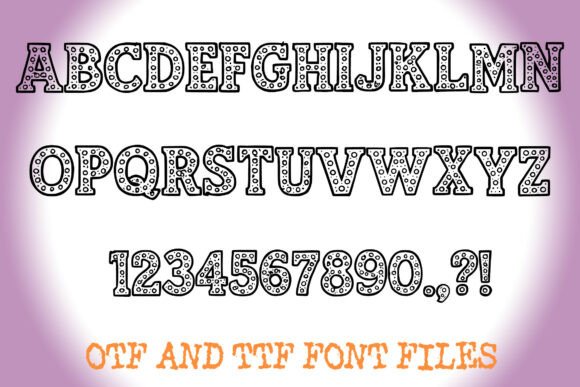
Circus Lights Font: A Bold and Whimsical Typeface for Your Designs
Are you looking for a font that can add a touch of nostalgia and festivity to your designs? Look no further than Circus Lights, a bold decorative display font inspired by vintage marquee signs and carnival aesthetics. This unique typeface is perfect for designers and crafters who want to create eye-catching posters, party invitations, signage, and more.
Inspired by Vintage Marquee Signs
Circus Lights is a font that takes its inspiration from the illuminated signage of old-school circuses and theaters. The font features uppercase letters and numerals filled with playful light-bulb dot patterns, giving it a whimsical and charming feel. The thick slab-serif structure ensures high visibility and strong visual weight, making it perfect for headlines, titles, and signage.
A Hand-Drawn and Unique Style Font
One of the standout features of Circus Lights is its hand-drawn outlines and uneven dot placements. This adds a touch of whimsy and charm to the font, making it perfect for designs that require a personal and playful touch. The font is also available in OTF and TTF formats, making it easy to use on both Mac and PC.
Perfect for a Variety of Designs
Circus Lights is a versatile font that can be used for a wide range of designs. It’s perfect for:
• Posters and flyers
• Party invitations and event branding
• Signage and displays
• Children’s events and educational materials
• Game titles and packaging
• Any design that requires a nostalgic, festive, and theatrical flair
Create Your Own Words and Colors
One of the best things about Circus Lights is that it’s a unique style font where you can create your own words and color them to your vision! This means that you can use the font to create custom designs that perfectly match your brand or project’s aesthetic.
Key Features of Circus Lights
• Bold decorative display font
• Inspired by vintage marquee signs and carnival aesthetics
• Uppercase letters and numerals filled with playful light-bulb dot patterns
• Thick slab-serif structure for high visibility and strong visual weight
• Hand-drawn outlines and uneven dot placements for a whimsical charm
• Perfect for posters, party invitations, signage, children’s events, game titles, and more
Circus Lights is a unique and versatile font that’s perfect for designers and crafters who want to add a touch of nostalgia and festivity to their designs. With its bold and whimsical style, this font is sure to grab attention and leave a lasting impression. Whether you’re creating posters, party invitations, signage, or more, Circus Lights is the perfect choice.
Get Ready to Shine with Circus Lights!